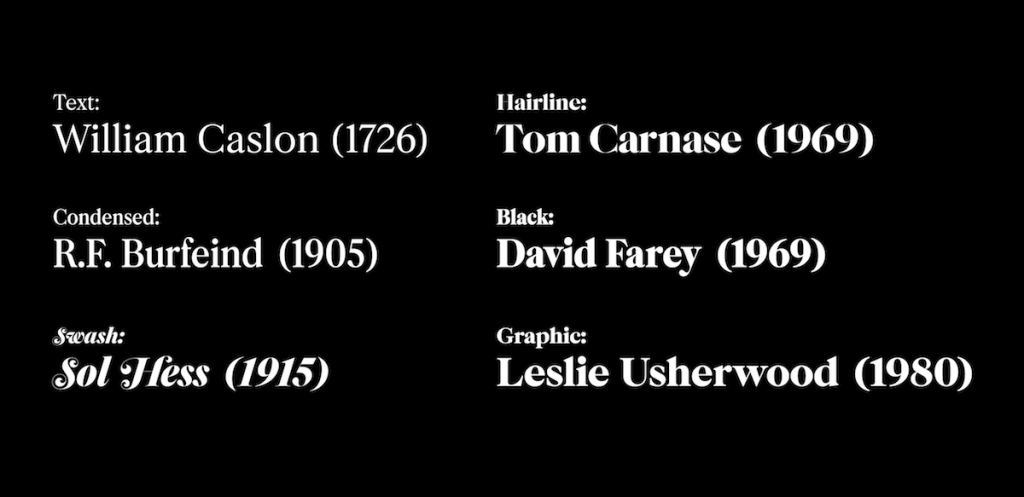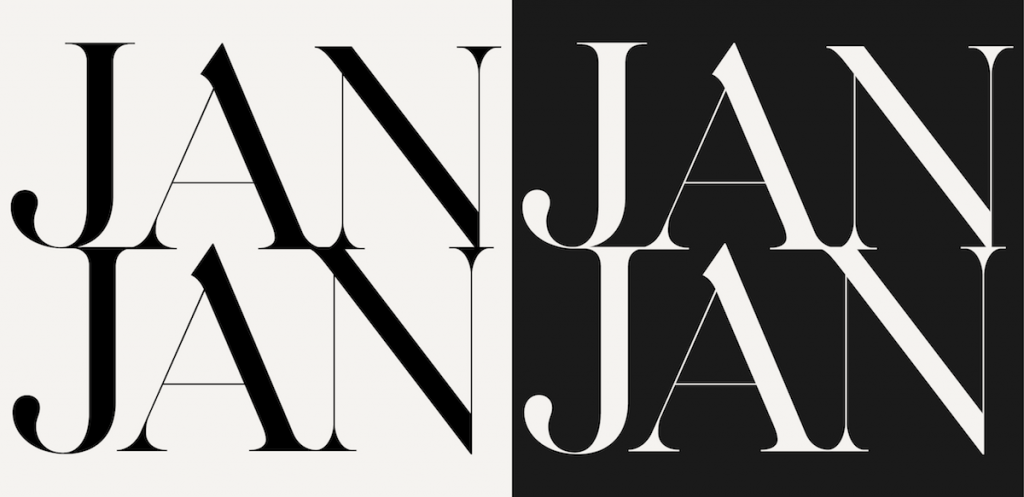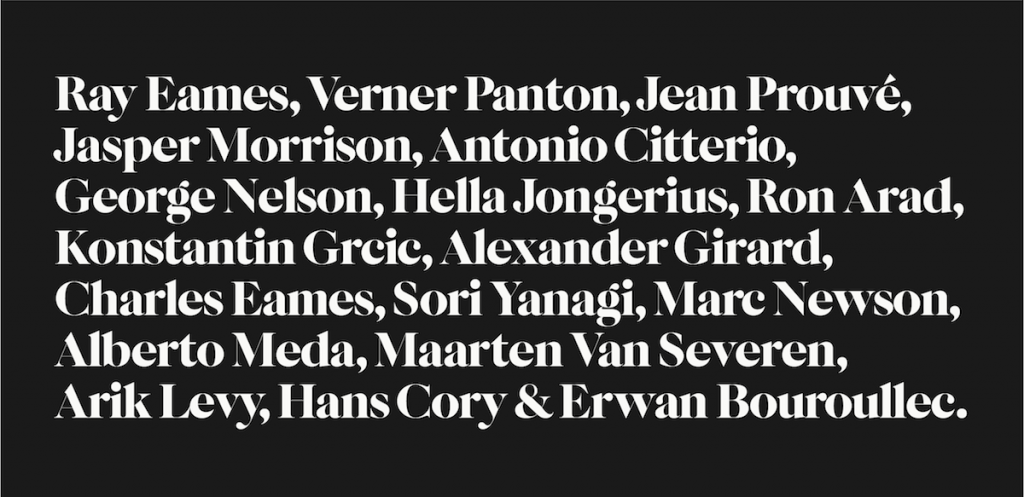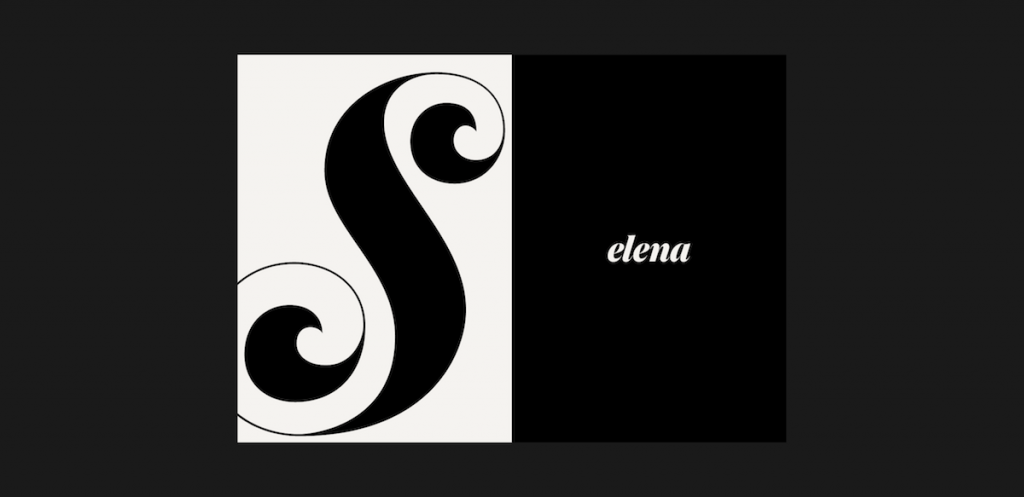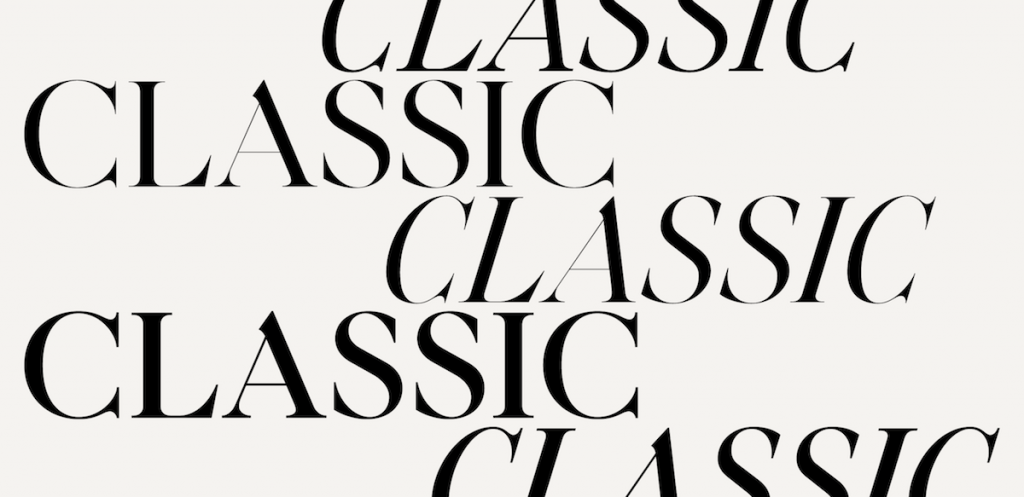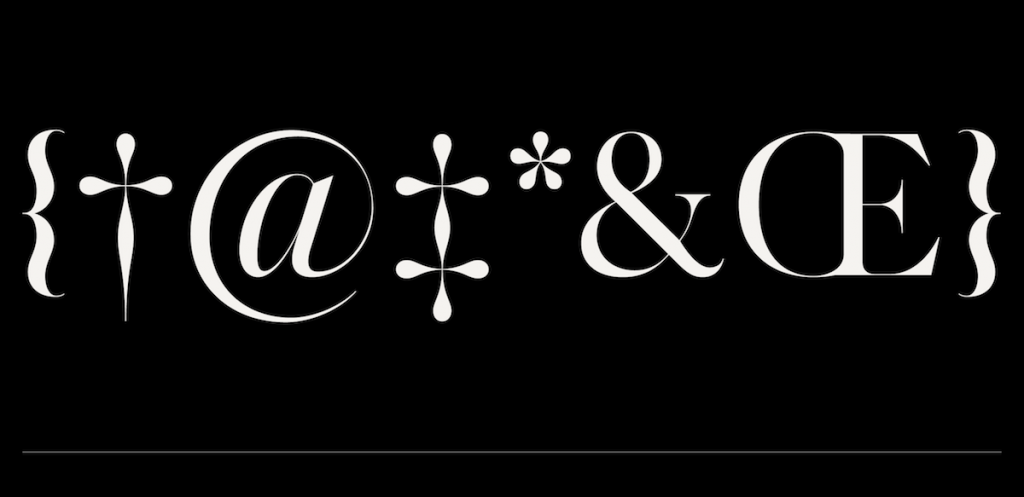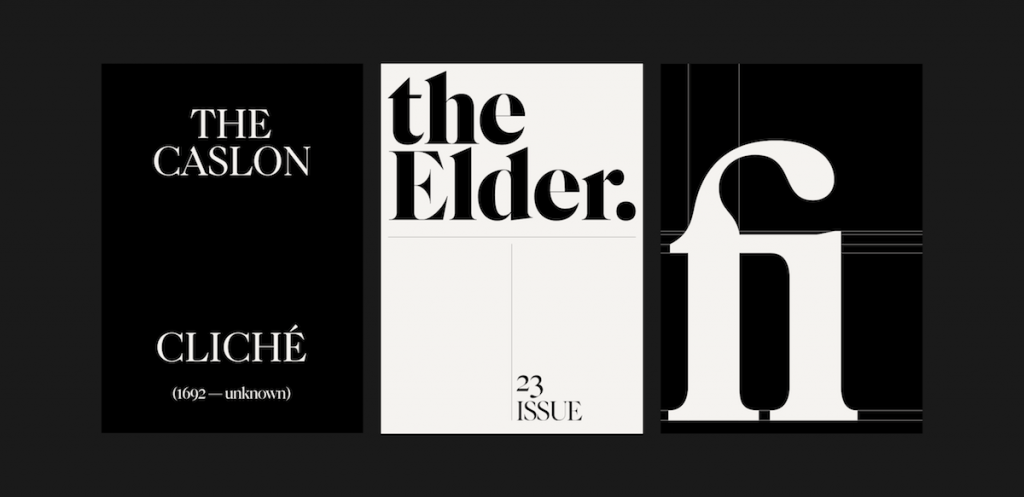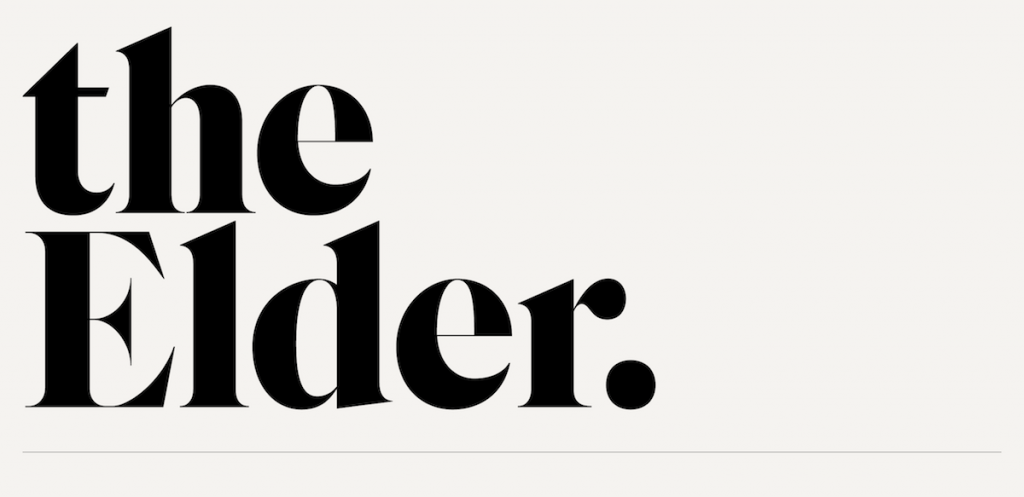
Name: F37 Caslon
Foundry: F37
Designer: Rick Banks
Release Date: November 2020
Back Story: F37 Caslon is, as the name suggests, a new cut of the classic Old Style font Caslon. The F37’s founder, type designer Rick Banks, reckons that we’re seeing a lot of older serif revivals at the moment, “especially in start-up rebrands” as a “backlash to all the geometric sans over recent years.”
Of course, this isn’t the first rework of Caslon: it’s been revived numerous times over the years, and F37 looked to a few of their favorites in order to be able to “create lots of flex within the typeface and flush various styles through the cut,” says Banks. They looked to R.F. Burfeind’s 1905 condensed version and were heavily informed by the “lovely swashes” from Sol Hess’s 1915 font. In creating the extreme hairline version that F37 was looking for, it drew from the 1969 design created by Tom Carnase and used brilliantly by Herb Lubalin. Another 1969 cut from David Farey inspired the team to create a “black” weight, and the most recent Caslon cut inspo was Leslie Usherwood’s Caslon Graphique from 1980, which informed F37’s “graphic” style.
F37 actually began life back in 2014, but the first draft was left half-finished and largely forgotten about for years. “Sometimes that’s the best way as it gives you time to reflect and provides repeated opportunity to keep tweaking and improving on the original concept,” says Banks. “I suppose creativity and the creative process are not always quick things, nor can they be forcibly rushed.”
Why’s it called F37? Pretty simple one, this: it’s the F37 rework of historical font Caslon. Inspired by Dutch Baroque type, Caslon was one of the first English typefaces ever made, created by London-born typographer William Caslon I, who founded the Caslon Foundry in 1739. When it was first published, the font was so popular it was used on the first printed version of the United States Declaration of Independence. “Alongside Helvetica, it was one of the first typefaces I remember as a teenager, so there is a huge nostalgia factor for me, given its longstanding influence on my choice of profession,” says its designer Rick Banks.
What are F37 Caslon’s distinguishing characteristics? “The main distinguishing characteristic in our revival is the sheer amount of styles and flavors, making it very versatile,” says Banks. This means it has four weights, two widths, and three optical sizes—a total of 36 styles. The F37 cut’s letterforms are distinguished by its large x-height, swashes, and discretionary ligatures.
What should I use it for? Designed with versatility in mind, F37 works well for print and digital applications since the text weight can be set for body copy, and the display styles are pretty much good to go for punchy uses like headlines. While this lends itself very obviously to things like posters or book covers, Banks says, “it would be cool to see it in packaging—like how serifs used to be used in the ’70s.” The classic, elegant feel enhances its suitability as a brand font, and the staunchly modernist aesthetic lends it well to a magazine or newspaper masthead.
What other typefaces do you like to pair it with? Since F37 Caslon has such a classic vibe, it works well alongside pretty much anything. If you want to go stylish but not too bonkers, Banks recommends a “clean modernist sans” such as F37 Hooj or a geometric font like F37 Moon to create an interesting contrast.